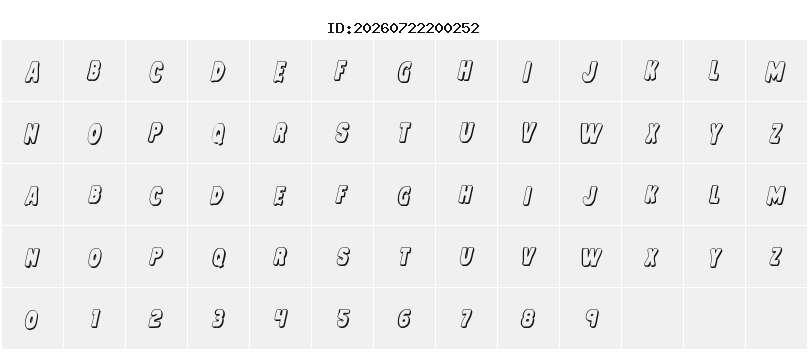
• Font Name: Mystery Mobile 3D Italic
• Full Font Name: Mystery Mobile 3D Italic
About Mystery Mobile 3D Italic.ttf
Mystery Mobile 3D Italic.ttf is a modern, elegant sans-serif font designed for ultimate readability and visual harmony. Perfect for branding, headlines, web design, and print materials.